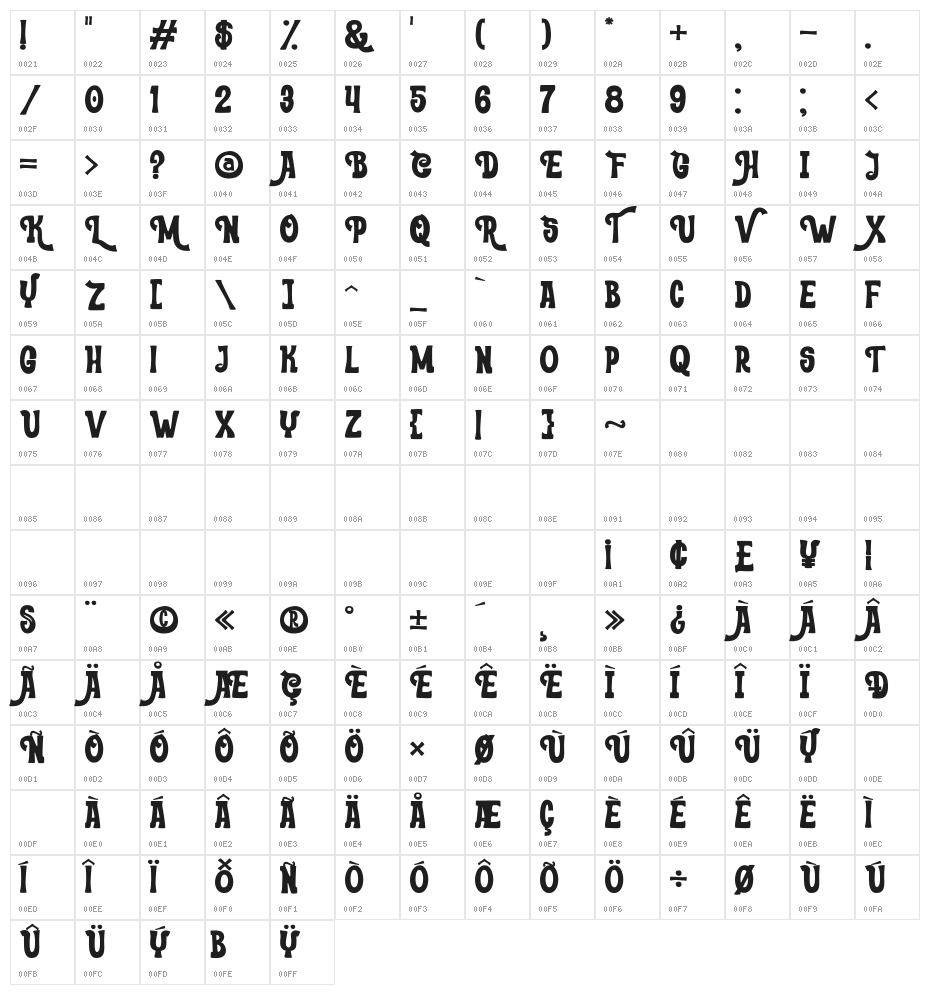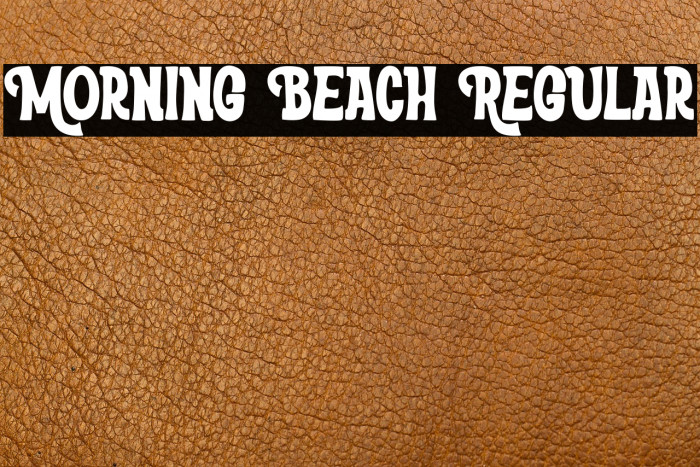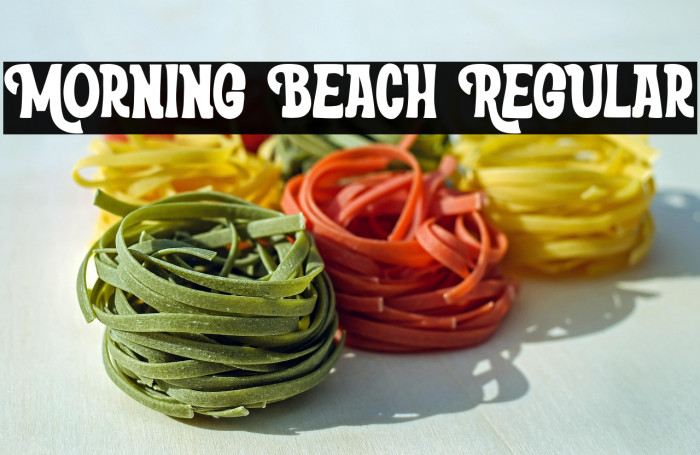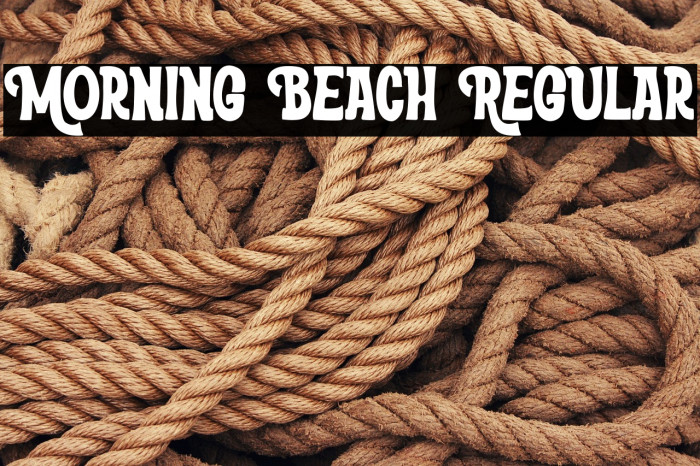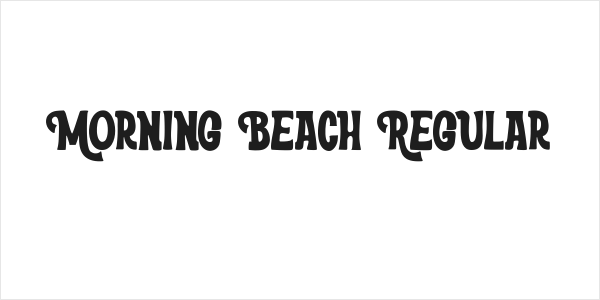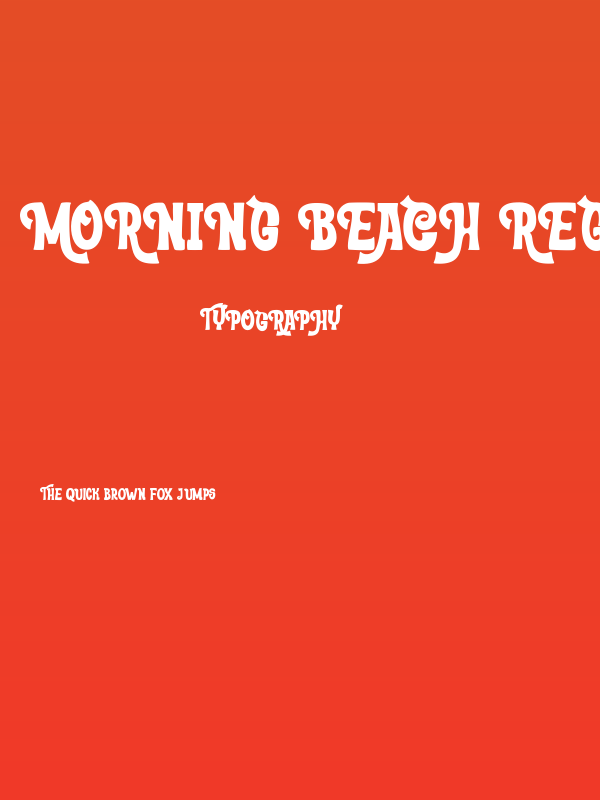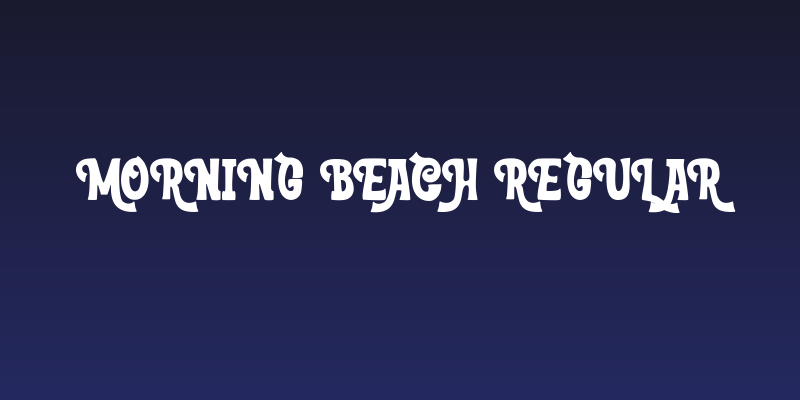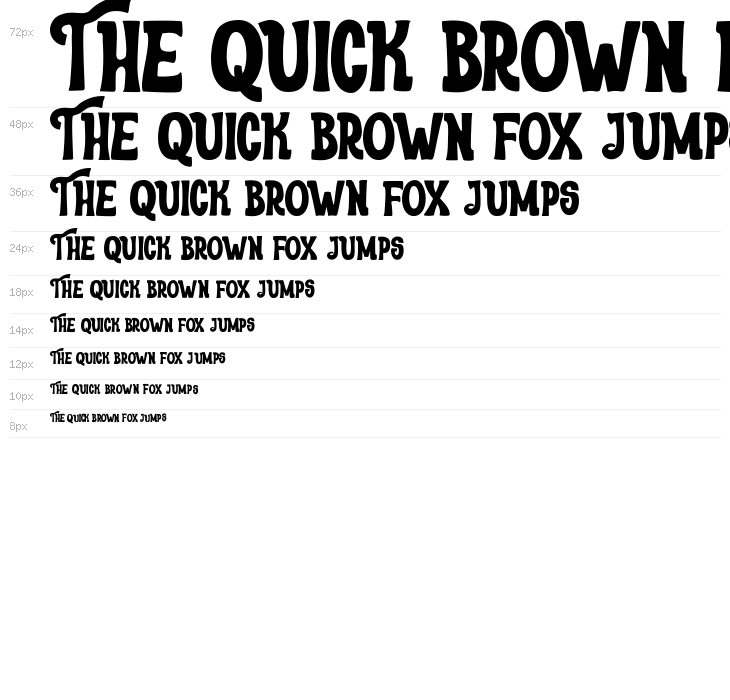
Morning Beach Regular Font
Morning Beach Regular Description
This font features a bold and playful design, characterized by its thick strokes and whimsical curves. The uppercase letters exhibit a unique blend of rounded and angular elements, giving them a lively and dynamic appearance. The lowercase letters maintain this playful style, with some characters having exaggerated loops and swirls. The numbers are equally bold, ensuring they stand out prominently. Special characters are designed with the same attention to detail, making them cohesive with the overall style. This font exudes a sense of fun and creativity, making it ideal for projects that require a touch of personality and flair.
| Overall Style | Playful, Creative |
| Proposed Projects | Ideal for children's books, playful branding, event posters, and creative packaging. |